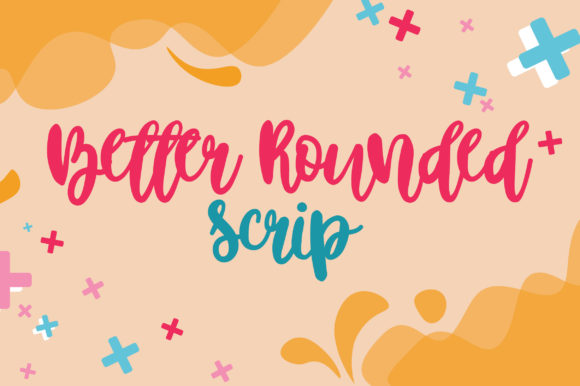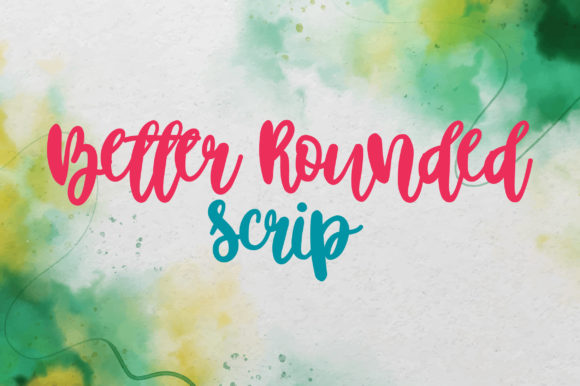
The Ultimate Design Hack: Better Rounded Scrip Font
I’ll never forget the time I was working on a project for a client who wanted a playful, yet elegant font to match their brand’s personality. I spent hours scouring the internet for the perfect font, but nothing seemed quite right. That was until I stumbled upon Better Rounded Scrip Font. 💡
This beautiful, handwritten font has been a game-changer for my designs, and I’m excited to share its awesomeness with you. Whether you’re a designer, crafter, or creative hobbyist, Better Rounded Scrip Font is sure to elevate your creations and take your designs to the next level! 🎉
- ✨ Playful and casual vibe that’s perfect for creative projects
- 💫 Beautifully rounded letters that add a touch of elegance
- 🎨 Versatile and works well for a variety of design applications
- 🤔 Some letters may appear a bit too rounded for very formal designs
According to the font’s creator, Better Rounded Scrip Font was inspired by the beauty of handwritten letters and the need for a more playful, yet elegant font option. The designer aimed to create a font that would be versatile, legible, and easy to use, while still conveying a sense of personality and whimsy.
Q: What is the best way to use Better Rounded Scrip Font?
A: Better Rounded Scrip Font is perfect for creative projects, such as invitations, greeting cards, and social media graphics. It’s also great for branding and packaging design.
Q: Is Better Rounded Scrip Font suitable for body text?
A: While Better Rounded Scrip Font is highly legible, it’s best suited for headlines, titles, and short paragraphs. For longer body text, a serif font may be more suitable.